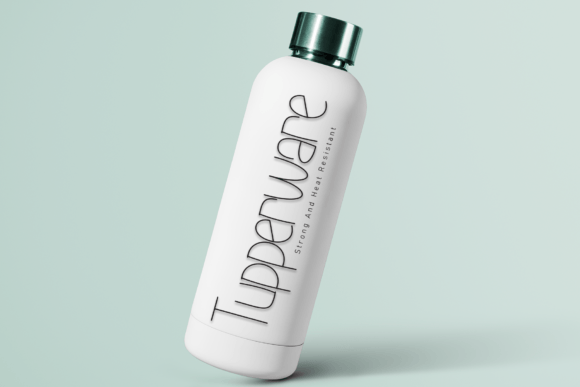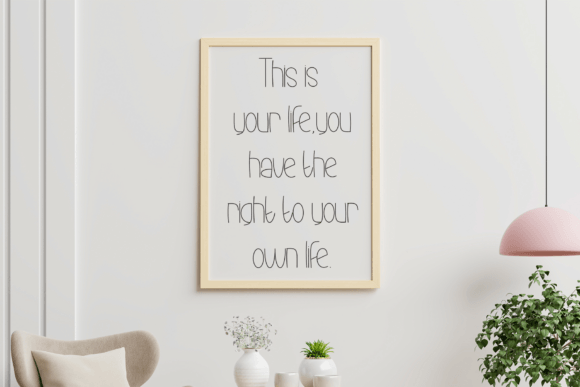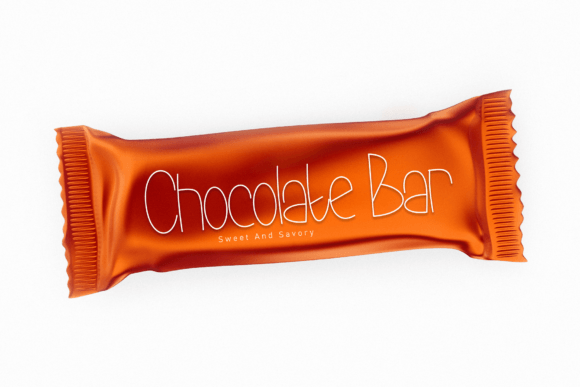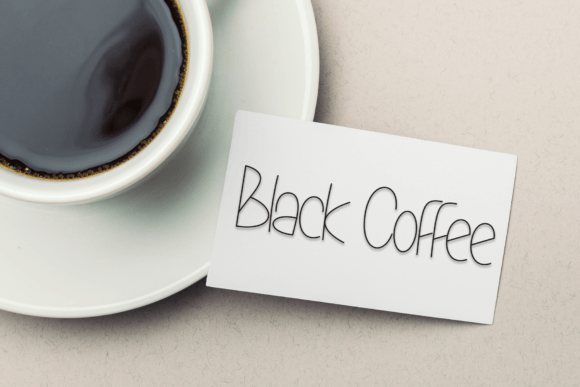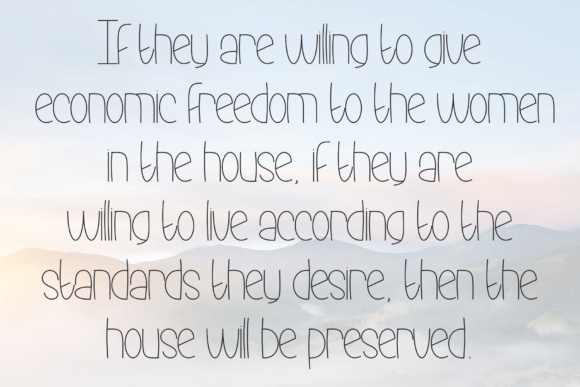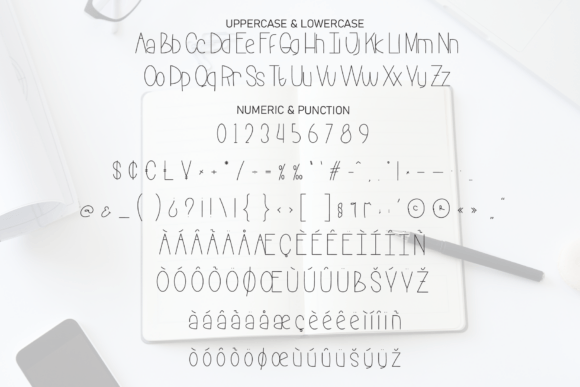
Introducing Digital Papper Font: The Ultimate Display Typeface for Whimsical Designs
I’ll never forget the time I was working on a wedding invitation project, and my client asked me to add a touch of playfulness to the design. I scoured the internet for the perfect font, but nothing seemed quite right. That was until I stumbled upon Digital Papper Font. This alluringly amicable hand-drawn display typeface has been a game-changer for my designs, and I’m excited to share its charm with you! ✨
As a designer, I’m always on the lookout for fonts that can add a unique touch to my projects. Here’s what I love about Digital Papper Font:
• ✅ Warm and whimsical aesthetic that’s perfect for creative designs
• ✨ Unique and inviting letterforms that add a spark of finesse and fun to any design
• 💕 Perfect for wedding invitations, greeting cards, and other projects that need a touch of playfulness
While Digital Papper Font is an amazing typeface, it’s not without its quirks. Here are a few things to keep in mind:
• ⚠️ Some letters may appear a bit irregular or imperfect, which can be a deliberate design choice but might not be suitable for all projects
• 🤔 Limited use in very formal or corporate designs, as it may come across as too playful
The Designer Inspiration Behind Digital Papper Font
Digital Papper Font was designed with the intention of creating a unique and playful typeface that would add a touch of whimsy to any design. The designer, inspired by the world of hand-drawn typography, aimed to create a font that would be both fun and elegant. With its warm and inviting aesthetic, Digital Papper Font is perfect for designers who want to add a personal touch to their projects.
What is Digital Papper Font? Digital Papper Font is a hand-drawn display typeface with a warm and whimsical aesthetic, perfect for adding a touch of playfulness to creative designs.
Is Digital Papper Font suitable for formal designs? No, Digital Papper Font is best suited for creative designs that require a playful touch. It may not be suitable for very formal or corporate designs.
Does Digital Papper Font come with OpenType features? Yes, Digital Papper Font comes with OpenType features, including glyphs and stylistic alternates, which can be used to add more personality to your design.